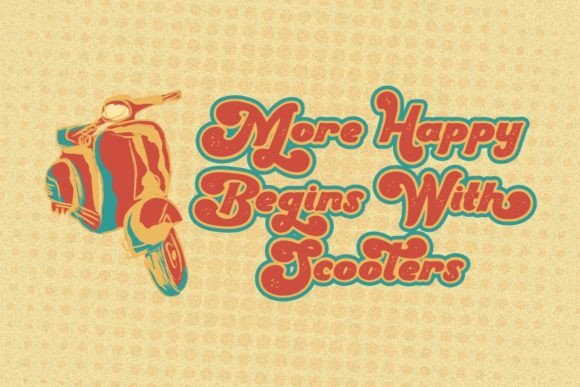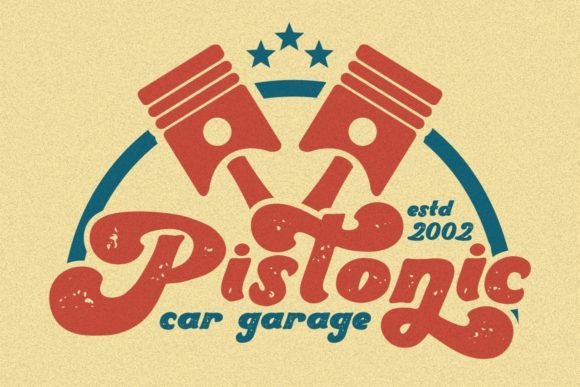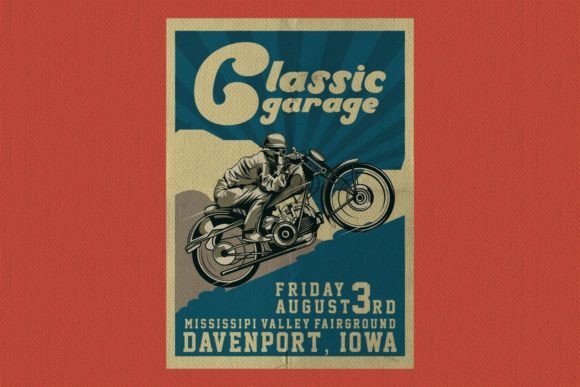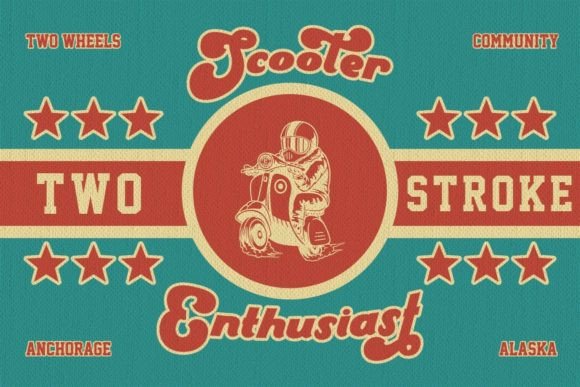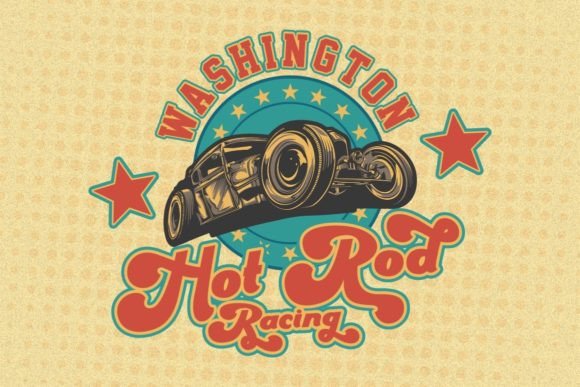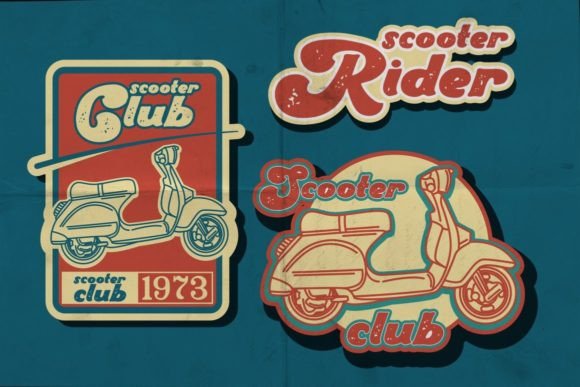
Introduction to Retro Couture Font
Have you ever stared at a vintage poster, mesmerized by the intricate details and bold typography? That’s exactly what inspired the creation of the Retro Couture Font, a stylish script display font that embodies the essence of classic poster design. As a designer, you’re always on the lookout for that perfect design resource to elevate your creative project, and this font is sure to be a game-changer.
With its high-quality design and versatility, the Retro Couture Font is perfect for a wide range of applications, from storybooks and illustrations to logos and branding. And the best part? It’s available for free download, making it an accessible and valuable addition to any designer’s toolkit. Whether you’re working on a personal project or a client-based design, this font is sure to add a touch of sophistication and flair.
- Unique, distressed texture and ornate details that evoke a sense of vintage elegance
- Perfect for use in graphic design, digital art, and other creative projects where a touch of retro sophistication is desired
I recently came across the Retro Couture Font while searching for a unique design resource for a creative project. I must say, it caught my eye with its elegant and sophisticated aesthetic. ✨
- The font comes in a range of styles and weights, allowing for flexibility in your design.
One of the things I like about the Retro Couture Font is its versatility. It’s perfect for use in various creative projects, from wedding invitations to fashion branding. ✨
- The font may not be suitable for use in large blocks of text due to its decorative nature.
- The font is not as legible at smaller font sizes, which may affect readability.
Overall, I’m impressed with the Retro Couture Font. Its high quality and unique design make it a valuable addition to any design resource collection. While it may have some limitations, I believe it’s a great option for designers looking to add some elegance to their creative project.
Retro Couture Font
The Retro Couture Font is a high-quality design resource perfect for adding a touch of elegance to your creative project. This stylish font features a transparent background, making it easy to incorporate into your designs.
Experiment with different font sizes, colors, and combinations to create unique and eye-catching designs. Use the Retro Couture Font to add a touch of sophistication to your branding, marketing materials, or personal projects.
The Retro Couture Font is perfect for:
- Personal projects and creative portfolios